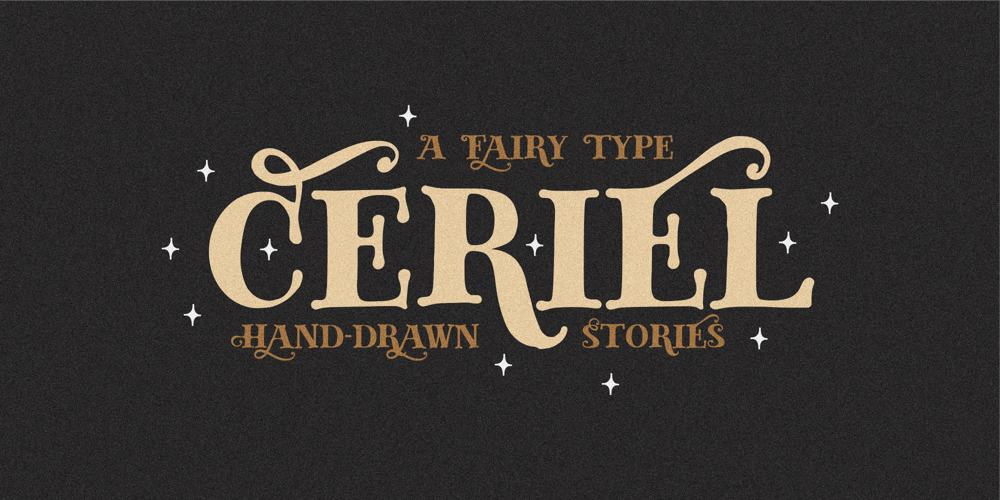
Ceriel Font Family was designed by Holis Majid and published by Holis.Mjd. Ceriel contains 1 styles and family package options. Ceriel is a font inspired by fairy tale books, this font is drawn so that it will get a natural touch or feel.This font can be used for promotional posters, social media branding, work titles, book titles, movie titles, and in other designs.